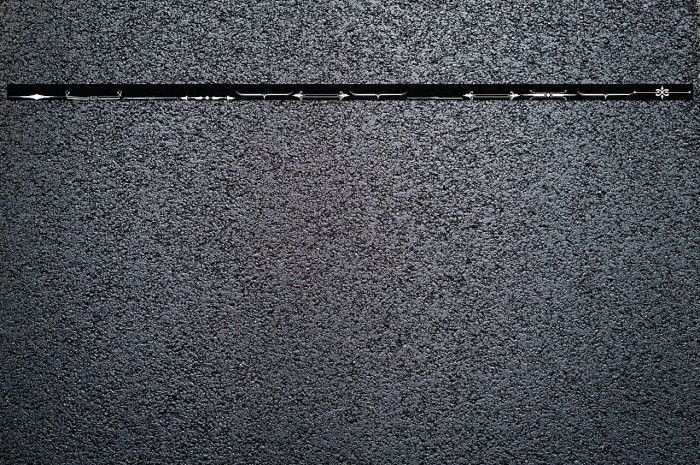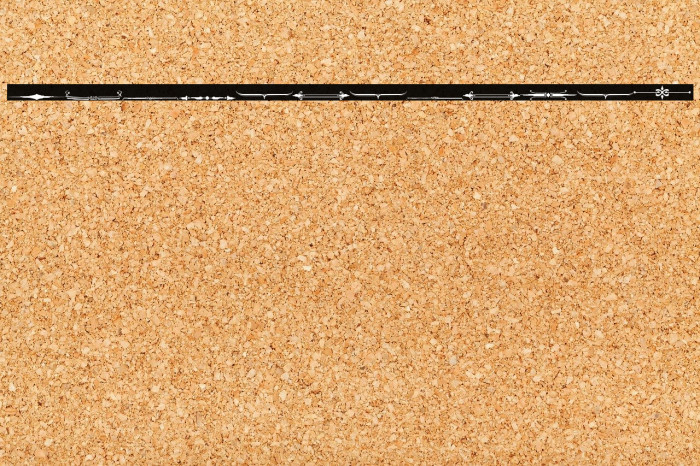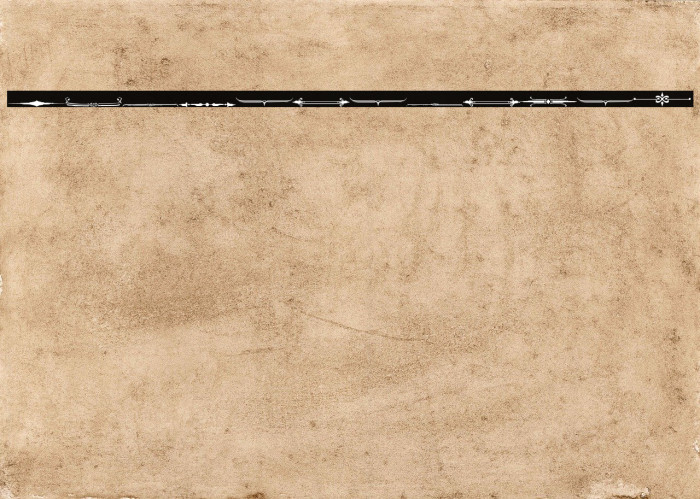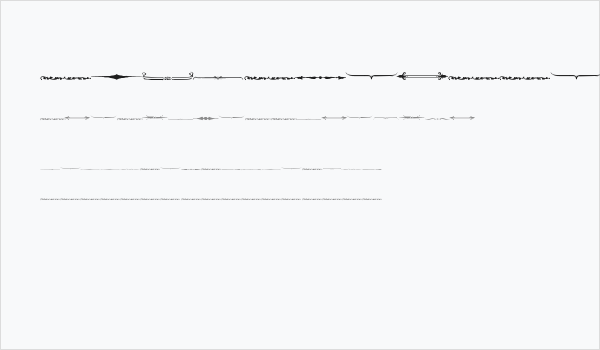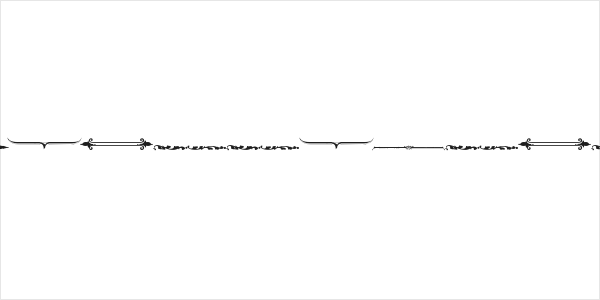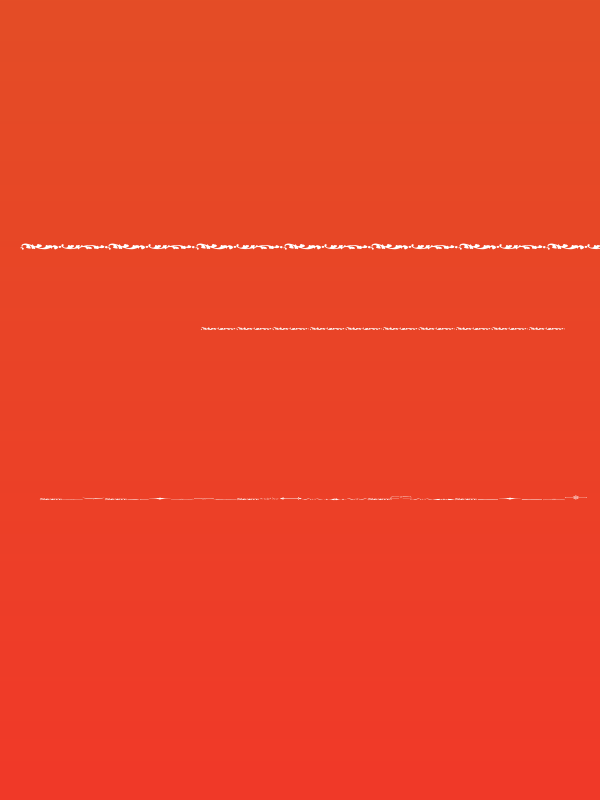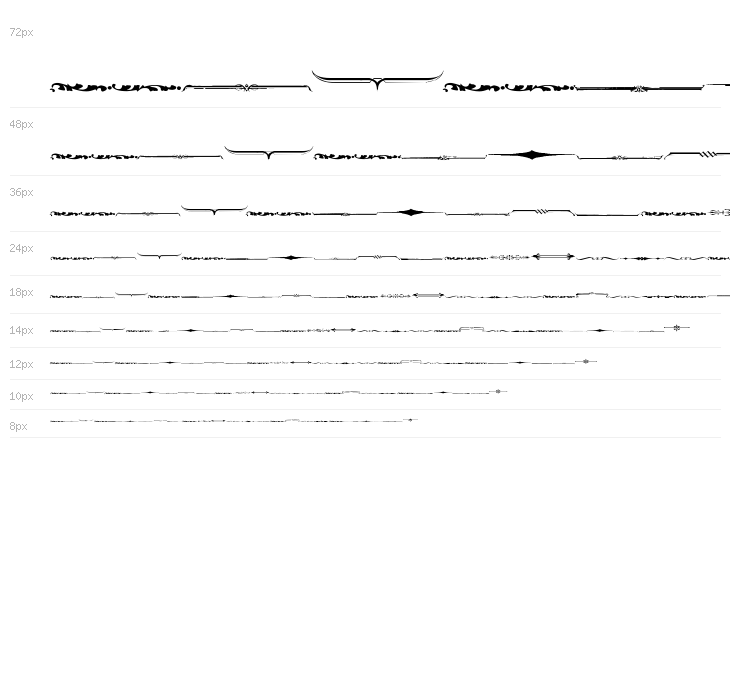
Sughayer Separates 6 Font
Sughayer Separates 6 Description
A collection of decorative horizontal line separators with intricate, ornamental details and varying thicknesses, designed for embellishing layouts or dividing sections in print or digital media.
| Overall Style | Vintage, Decorative |
| Use Case | Section dividers, ornamental accents, invitations, certificates |
| Proposed Projects | Wedding invitations, certificates, book chapter dividers, vintage posters, menus, greeting cards. |